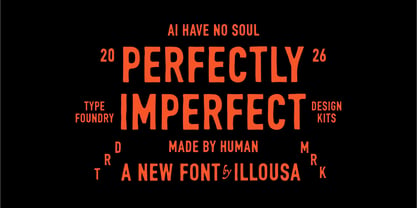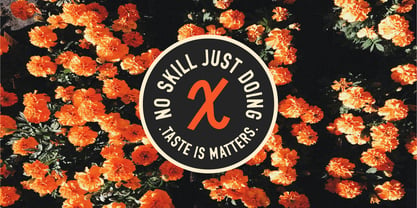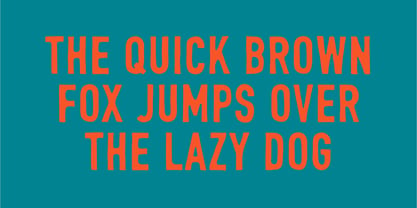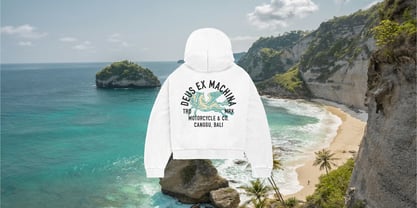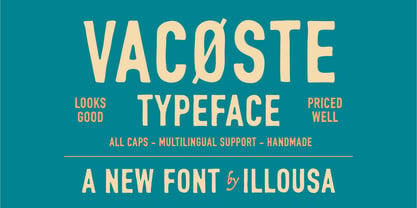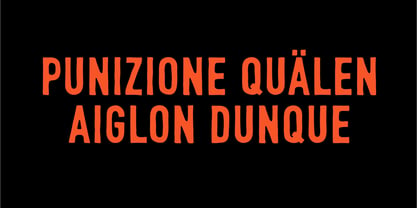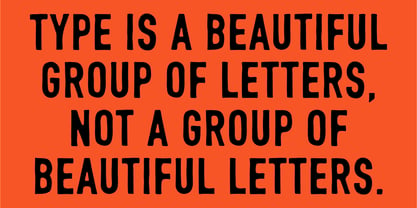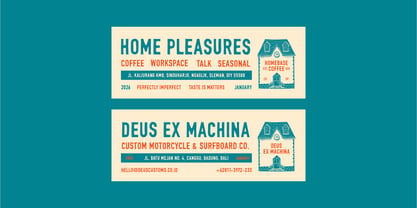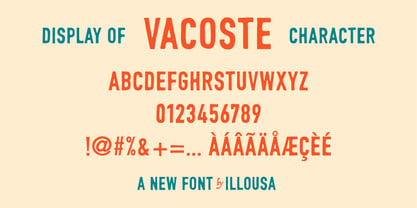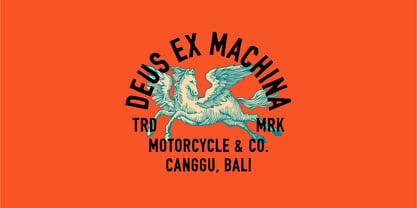
SCC Vacoste
La famille de polices SCC Vacoste a été conçue par Ilham Afrora et publiée par Illousa Supply Co. SCC Vacoste contient 1 styles. En savoir plus sur cette famille
INTRODUCTION | VACOSTE / A BOLD RUSTIC SANS-SERIF / THE ULTIMATE HAND-PAINTED DISPLAY FONT Revive the essence of classic craftsmanship with a typeface that speaks volumes. Vacoste is more than just a font; it’s a digital homage to the era of master sign-painters. In contrast to the cold and automated feel of modern typography, Vacoste embodies a labor of love, designed to infuse the warmth of the human hand back into digital design. With its rugged, tall, and commanding presence, it captures the raw texture of a brush against wood. Crafted for high-impact storytelling, Vacoste is the essential "heavy lifter" in your design toolkit. Its weathered edges and organic weight distribution make it invaluable for brands that prioritize authenticity, heritage, and the trending "handmade" aesthetic of 2026. Why Vacoste is a Must-Have: The "Human Factor" Aesthetic: Embracing the intentional imperfections of hand-lettering, it gives your work a custom-made feel that distinguishes it from generic sans-serifs. Seamless Multilingual Integration: Fully localized for a global audience, supporting a wide range of accents and characters for consistent international branding. Perfect For: Heritage & Industrial Branding (Distilleries, Workshops, Denim Brands) Outdoor & Adventure Graphics (Travel Posters, Camping Gear, National Park Signage) Modern-Vintage Packaging (Specialty Coffee, Artisanal Snacks, Grooming Kits) Event Identity (Music Festivals, Farmers Markets, Craft Fairs) Bold Digital Headlines & Statement Social Media Graphics Vacoste is ideal for branding, editorial design, and web applications, ensuring your projects stand out with a unique, handcrafted touch. Its versatility across various mediums makes it a go-to choice for designers seeking to convey a sense of authenticity and character in their work.